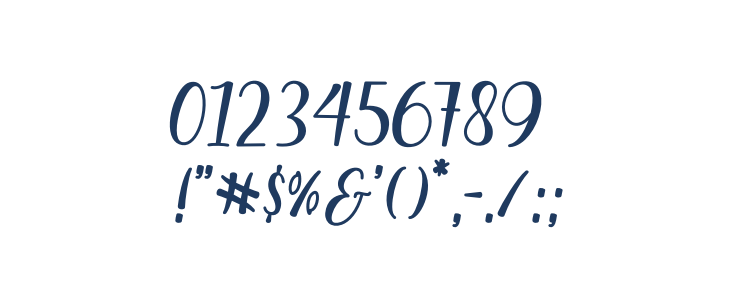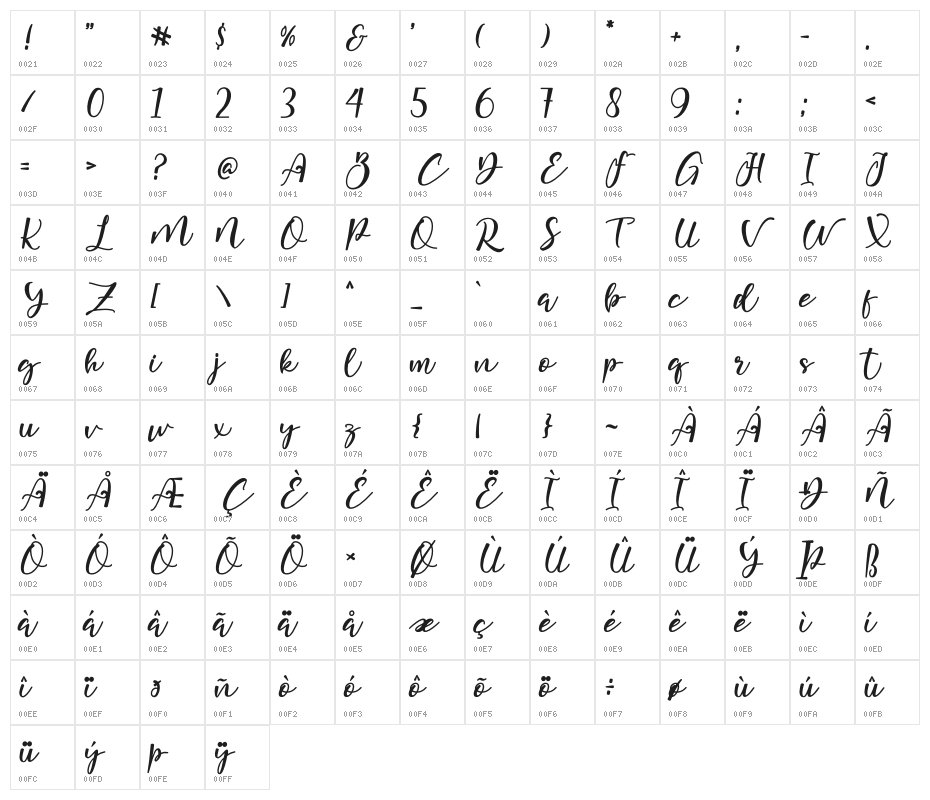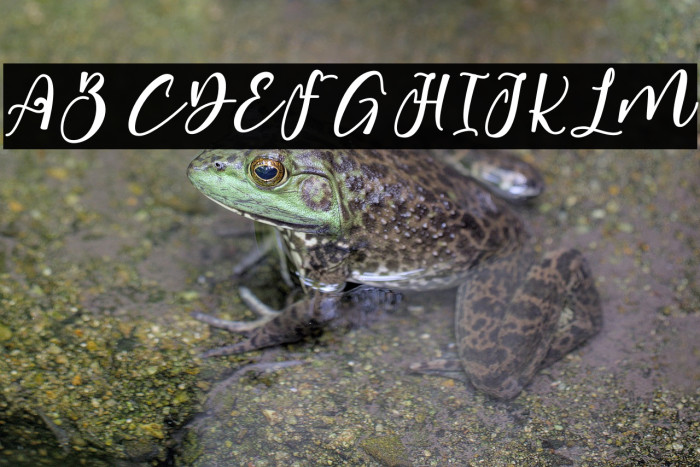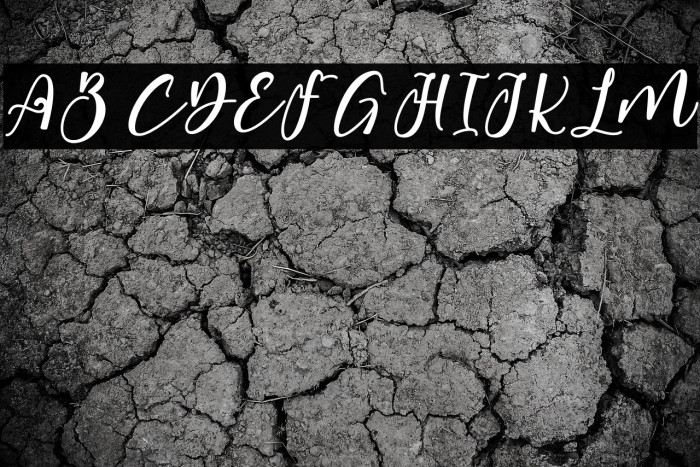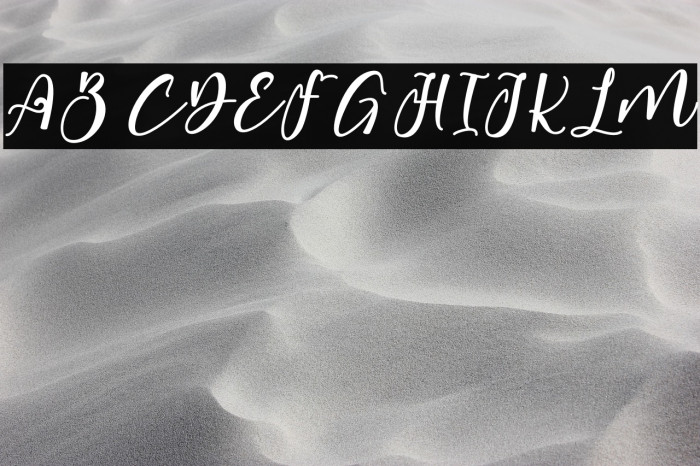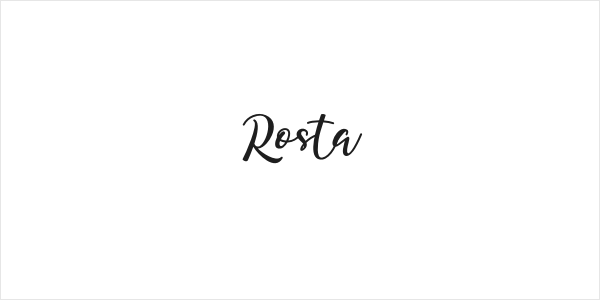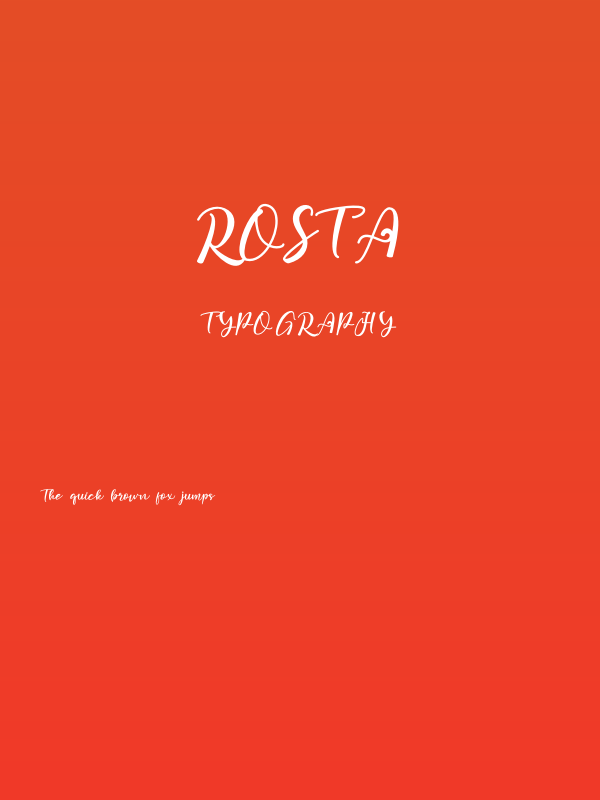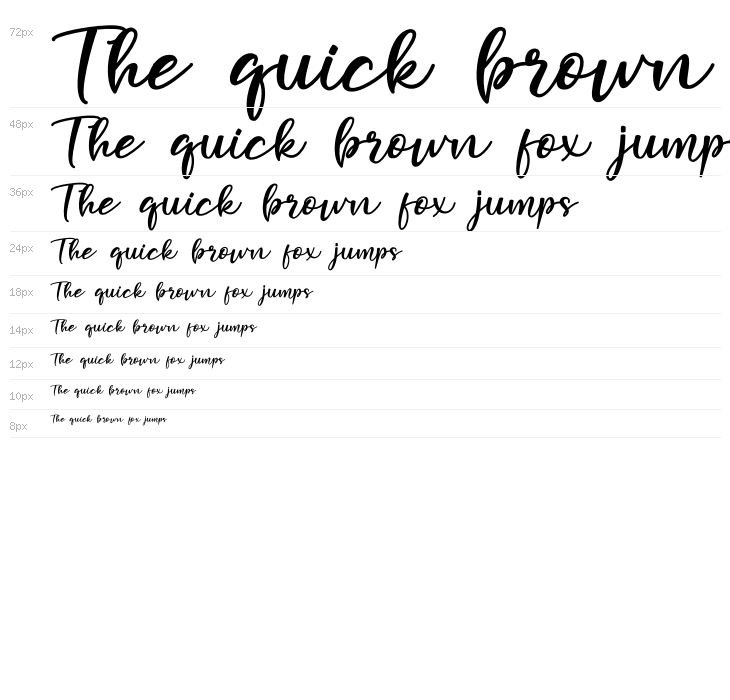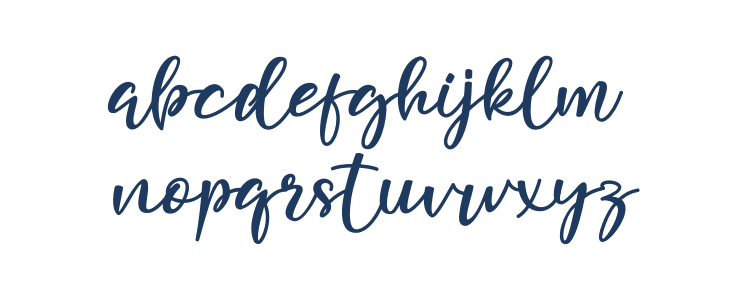
Rosta Font
Rosta Description
This font exudes a lively and dynamic character with its fluid, cursive style. The letters are interconnected, creating a seamless flow that mimics natural handwriting. The uppercase letters are slightly more structured, while the lowercase letters maintain a playful and casual appearance. The numerals and special characters are consistent with the overall script style, adding to the font's cohesive look. The strokes vary in thickness, providing a medium contrast that enhances readability while maintaining an artistic flair.